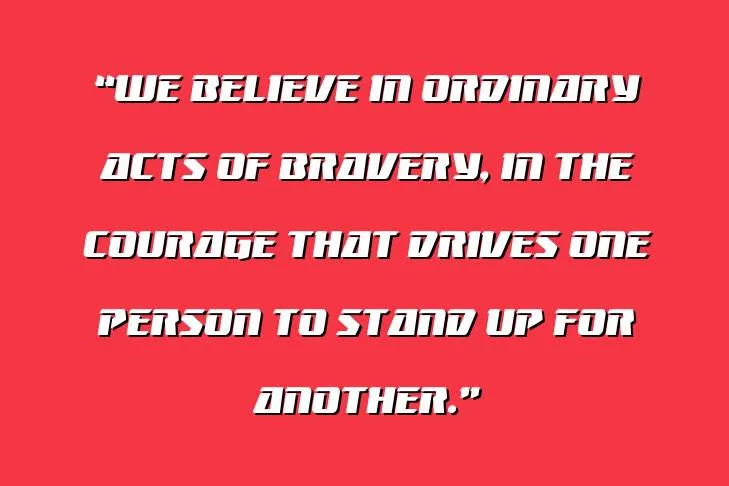
Let’s introduce another Display typeface and its features are as unique as its name, i.e. “Boomhauer Font.” This sensational typeface elegantly knocked up a prominent graphic designer Danial Zadorozny who is a famous typographer as he devised many other Script fonts as well and all fonts are equally delicate, sophisticated, and modern.
This typeface is composed of many contemporary features such as a fine set of ligatures, and stylistic alternates along with a balanced composition of text structure which is comprised of both small and capital alphabets, numbers from 0-9, punctuations, and symbols.
Various Ways To Use Boomhauer Font
Its utilization is equally unique and extraordinary as its characteristics. It is presented with 17 various styles and weights and every style of this typeface imparts a different look to your projects so it is recommended to use this exceptional typeface to create headings, and titles, or to generate books, novels, and magazine covers.
Its calligraphy style looks fantastic to your eyes and quickly grabs the attention of the audience as it imbued a sophisticated, elegant, and classy style that complements every aspect of your patterns and designs. This font style is largely used to make a pair with other fonts. So, I recommend combining it with palanquin font.
Besides this, I’m gonna tell you some common uses of this typeface; you can optimize it to create stunning and eye-catchy mural designs, logo designs, gaming website interfaces, wallpapers, posters designs, logo designs, banner or brochure layouts, art and craft projects and much more.
Styles and Weights of Boomhauer Font Family
This typeface is constructed of 17 different weights and styles and every weight shows a unique impact on your patterns and designs. The weights are listed below:
- Boomhauer Compact
- Boomhauer Condensed
- Boomhauer Expanded
- Boomhauer Gradient
- Boomhauer Halftone
- Boomhauer Italic
- Boomhauer Laser
- Boomhauer Laser Italic
- Boomhauer Leftalic
- Boomhauer Outline
- Boomhauer Semi-Italic
- Boomhauer Spaced
- Boomhauer Straight
- Boomhauer Super-Italic
Can I use Boomhauer Font for logo designs?
Yes! This font is the perfect choice for Logos, YouTube channels, shipping websites Instagram accounts, and business websites.
Who designed Boomhauer Font?
This sensational typeface elegantly knocked up a prominent graphic designer Danial Zadorozny who is a famous typographer he devised many other Script fonts.